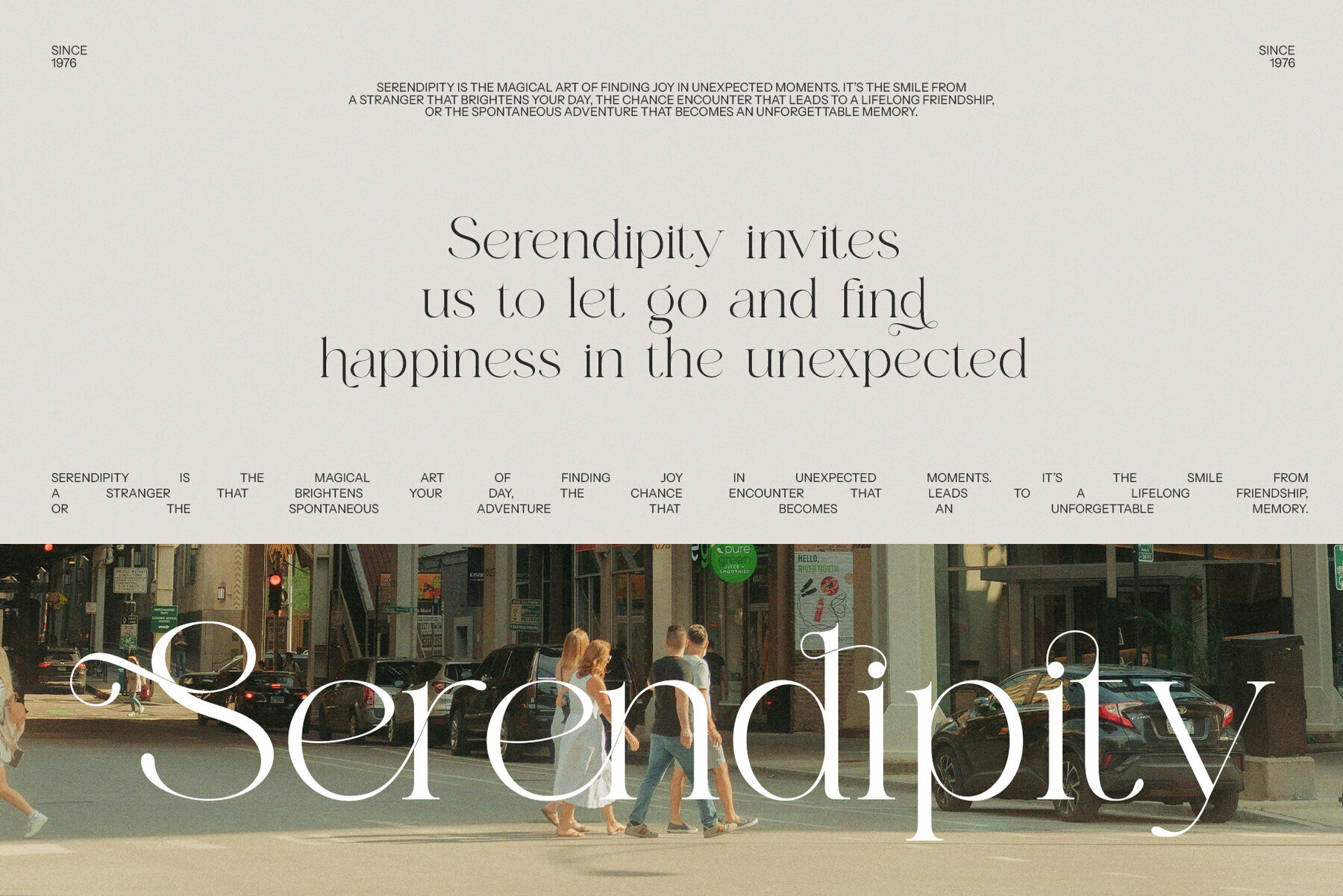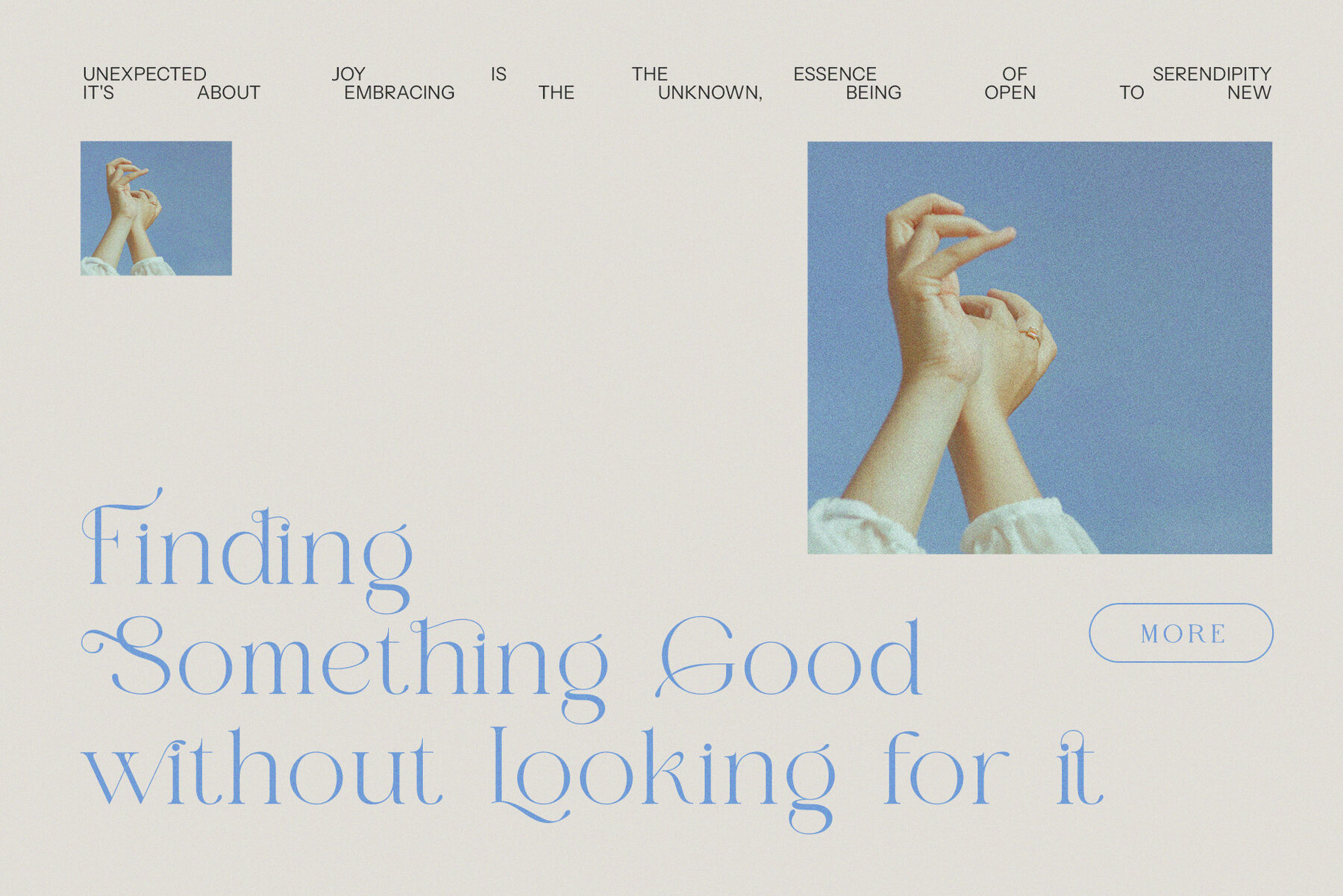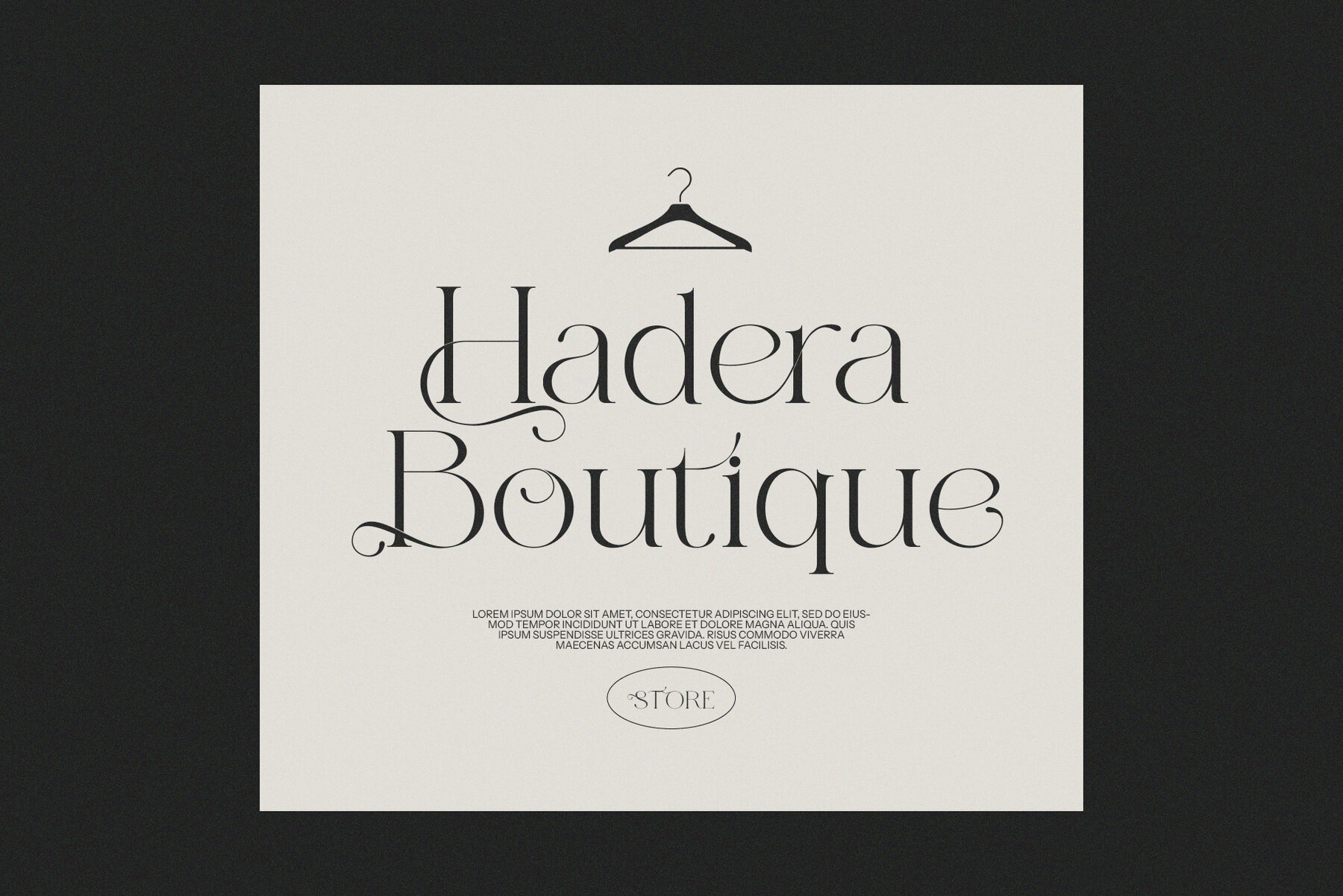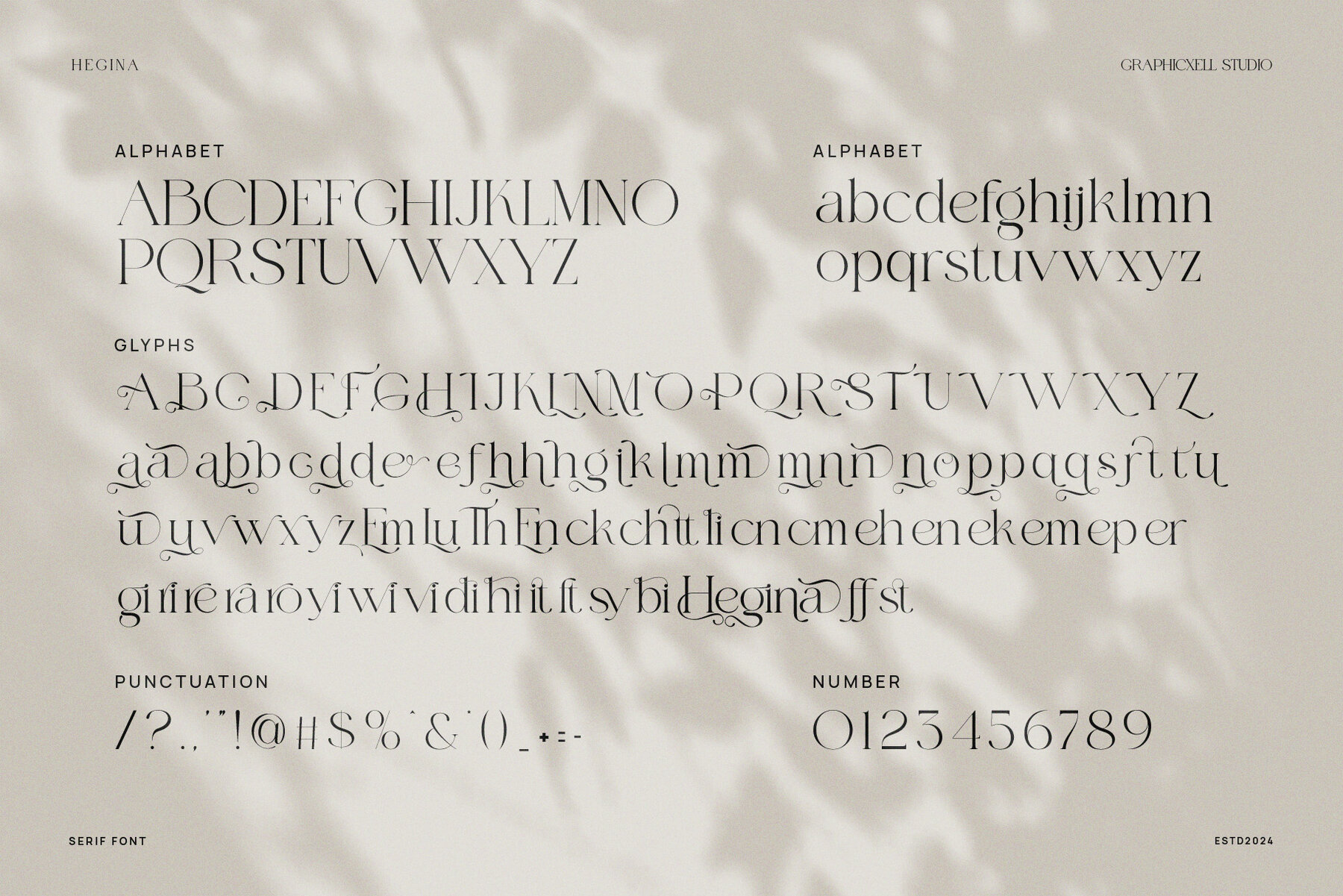
Hegina Font
Hegina
Hegina Elegant Serif is a refined serif typeface that seamlessly combines modern sophistication with classic allure. Its smooth curves, sharp serifs, and finely crafted ligatures exude grace and elegance, offering a distinctive and luxurious appeal. The high-contrast strokes and artistic alternates bring a polished touch to projects, making it ideal for high-end branding, fashion editorials, luxury packaging, and upscale websites that require a chic and professional look.
This versatile font is well-suited for boutique logos, elegant invitations, advertising campaigns, and magazine layouts that demand sophistication. Hegina's delicate yet confident letterforms are perfect for both bold headlines and refined body text, ensuring readability while maintaining an exclusive feel. With thoughtfully designed ligatures and alternate characters, it allows for creative customization, enabling designers to craft unique and stylish compositions.
Ideal for various applications like premium product labels and modern business branding, Hegina adds timeless elegance to amplify visual impact. Whether paired with minimalist designs for a contemporary touch or used in elaborate layouts for dramatic effect, Hegina brings a refined aesthetic to any project, embodying luxury, sophistication, and artistic beauty.